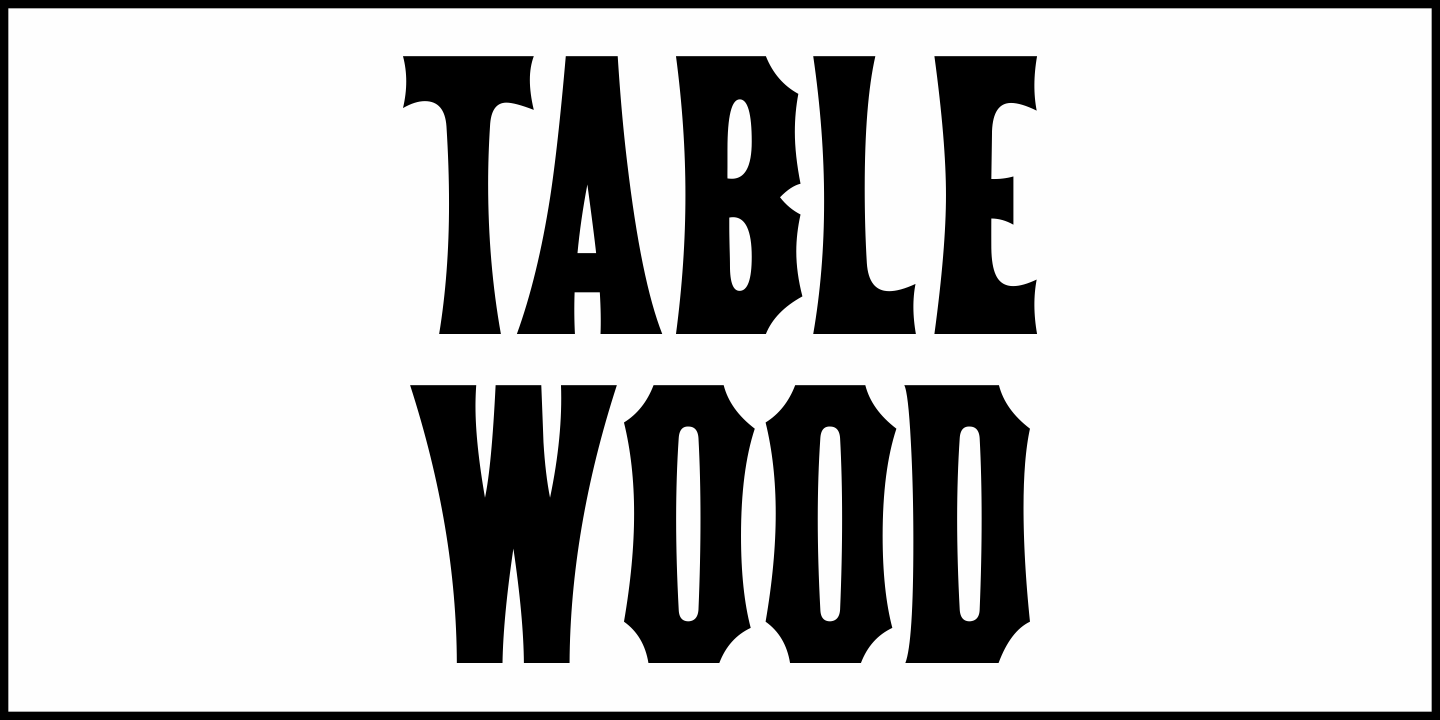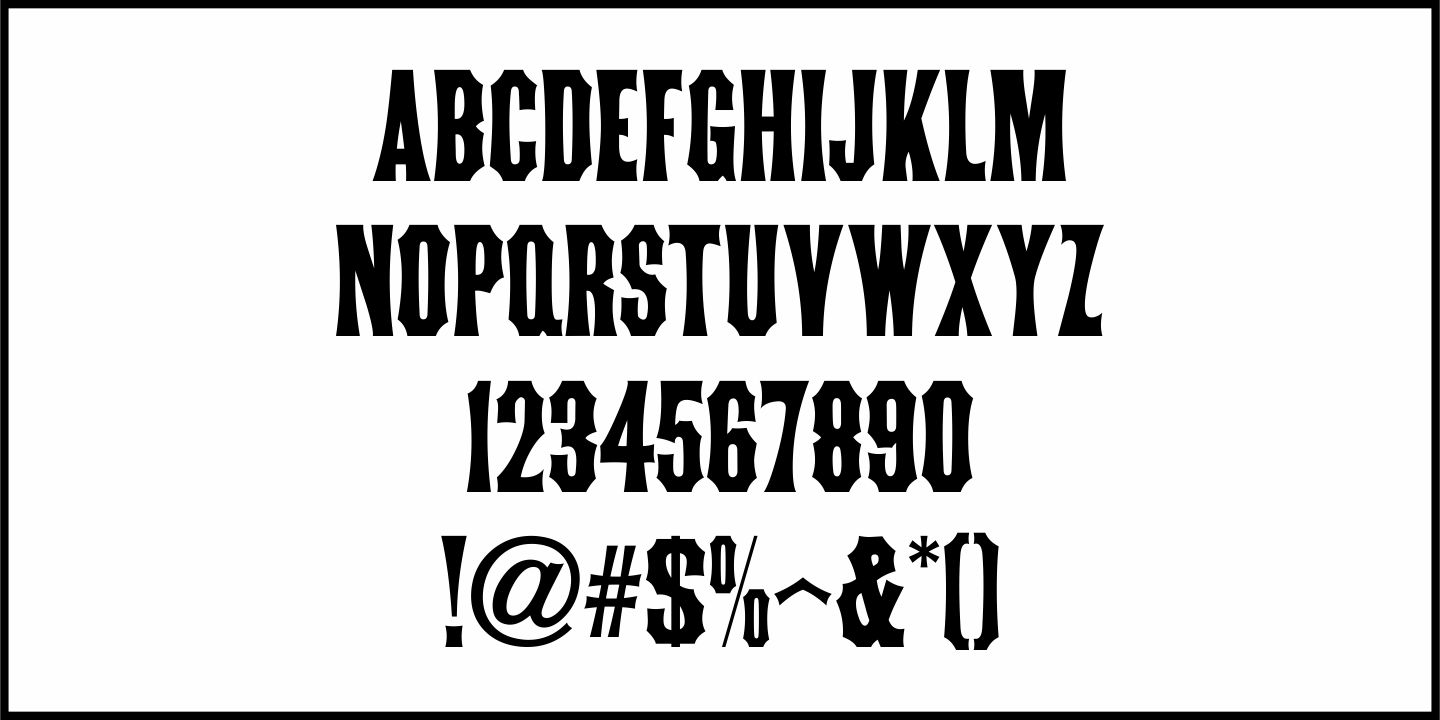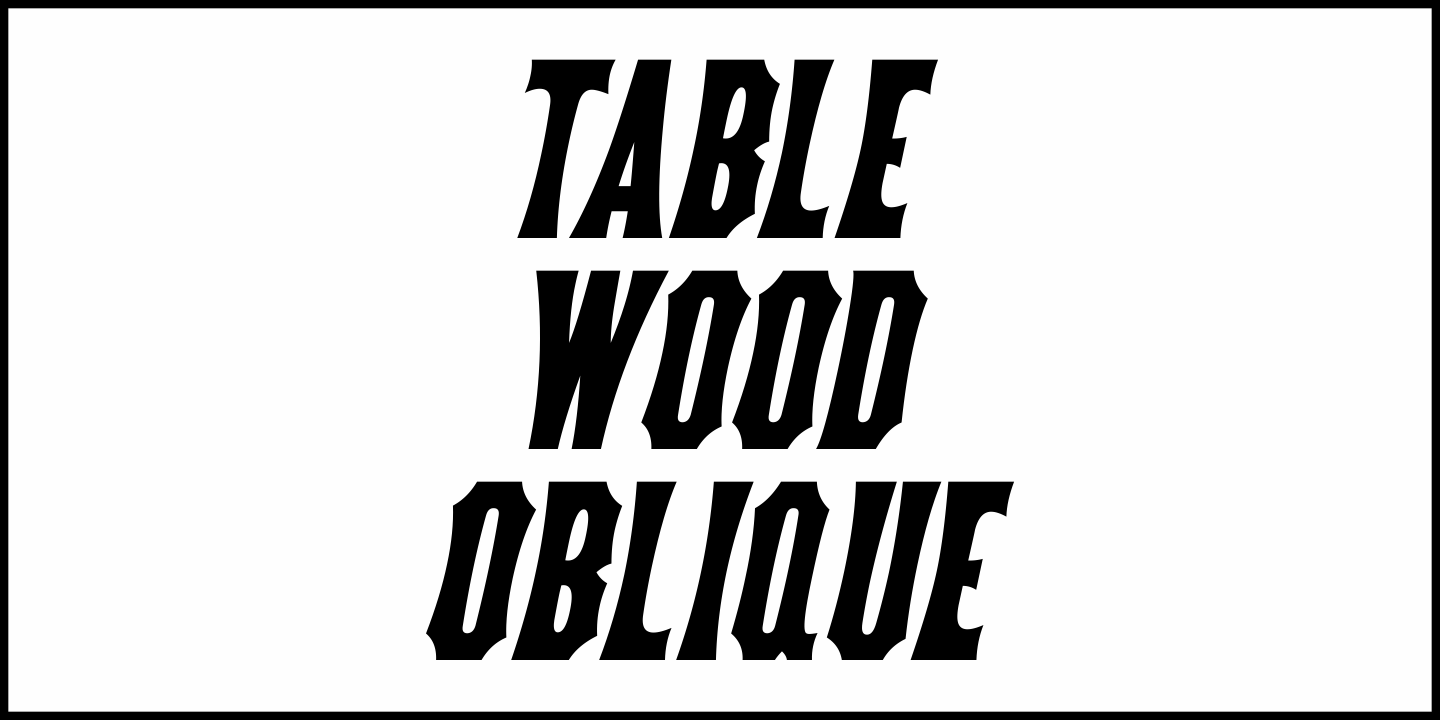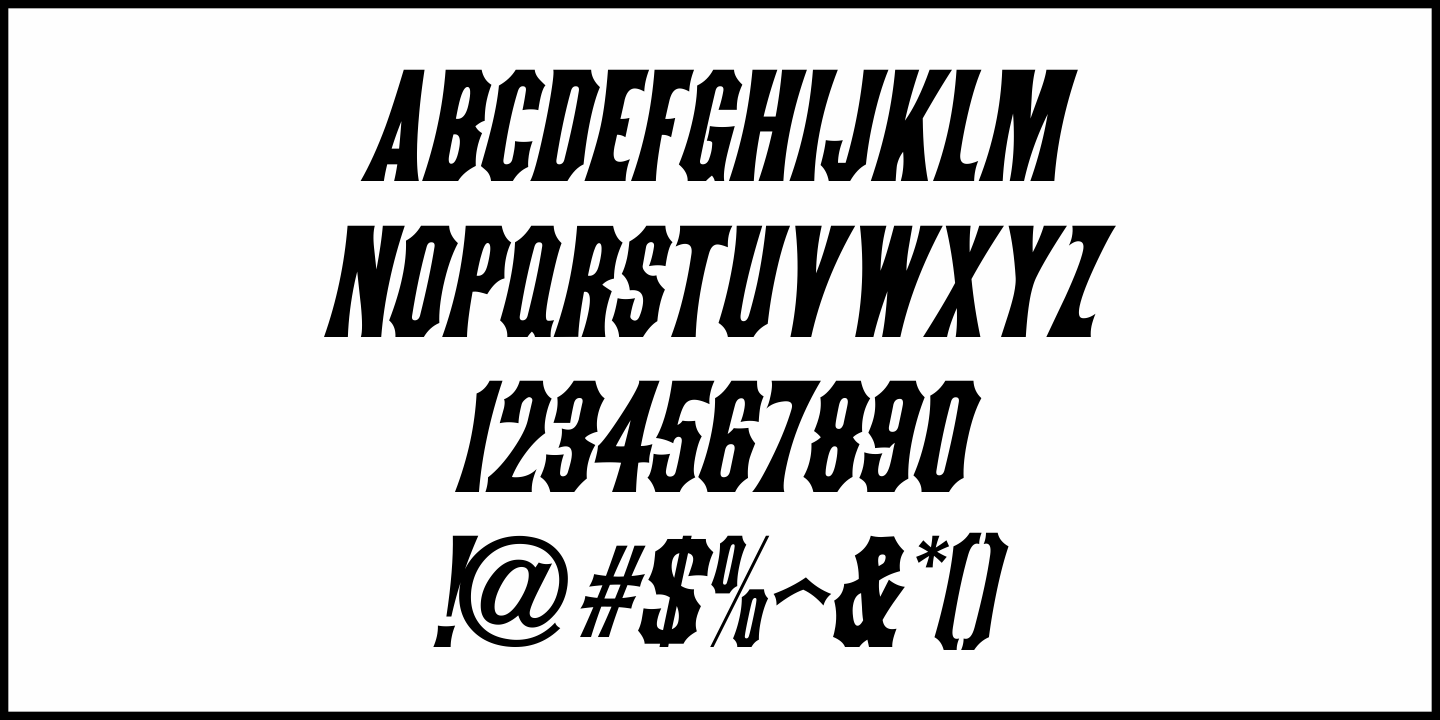
Table Wood
Concave Tuscan Extra Condensed is a classic wood type sans serif design that is the basis for Table Wood JNL, which is available in both regular and oblique versions.